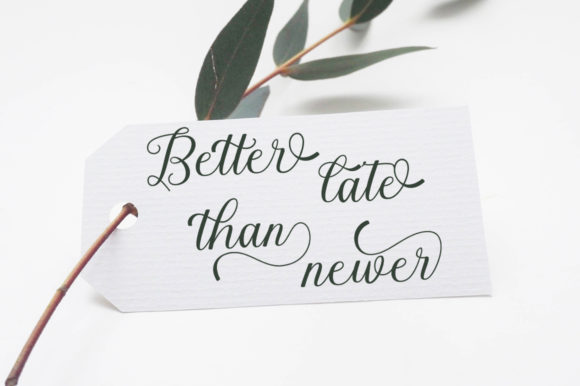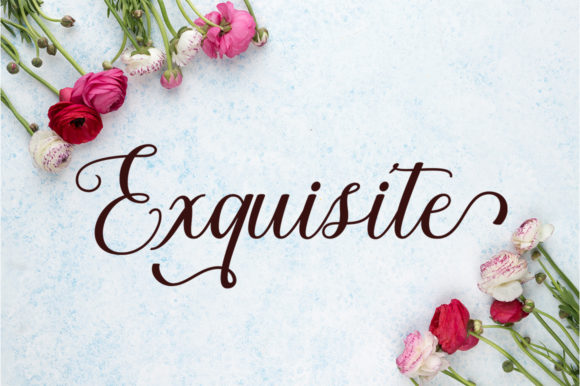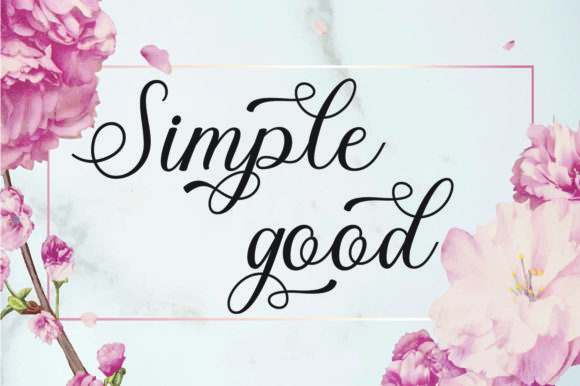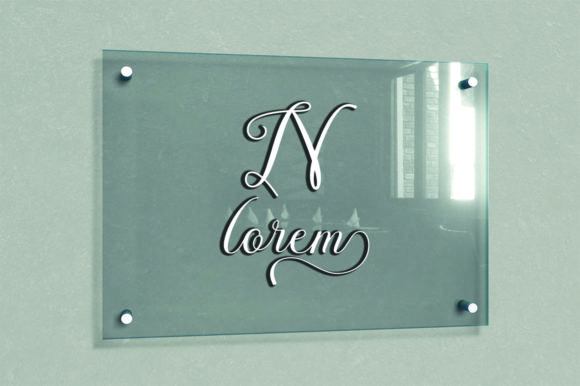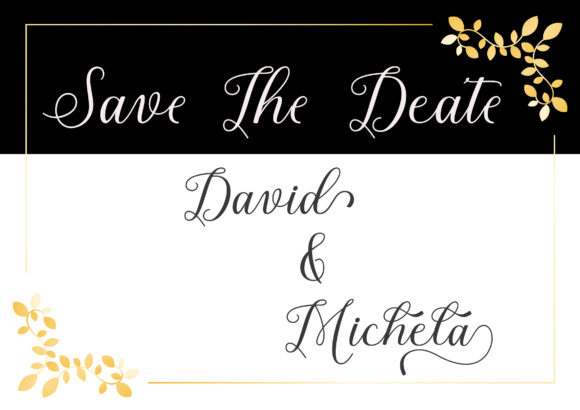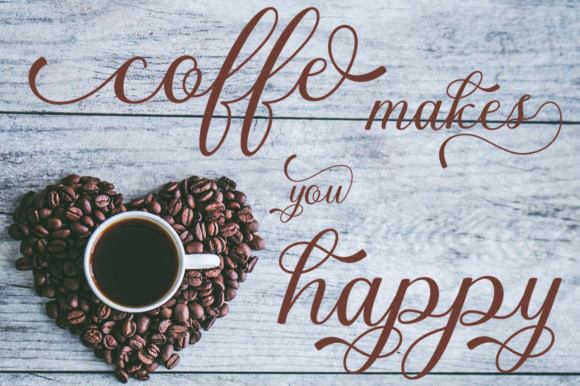
Familiar Font: Elevate Your Designs with Elegance and Sophistication
In the world of typography, a well-crafted font can make all the difference in elevating your designs to new heights. For designers and crafters seeking to add a touch of elegance and sophistication to their projects, Familiar Font is an exceptional choice. This beautiful, handwritten font is designed to bring a sense of refinement and luxury to any design, making it perfect for a wide range of applications.
What Makes Familiar Font Stand Out?
Familiar Font is an elegant and flowing handwritten font that boasts a range of features that set it apart from other fonts. Here are just a few reasons why designers and crafters are falling in love with this stunning font:
- Varying Baseline: The font features a varying baseline, which gives it a sense of movement and fluidity. This helps to create a natural, organic feel that is perfect for designs that require a touch of elegance.
- Smooth Lines and Gorgeous Glyphs: Familiar Font boasts smooth lines and gorgeous glyphs, which work together to create a truly stunning visual effect. The font’s lines are carefully crafted to be smooth and flowing, while the glyphs add an extra layer of depth and interest.
- Stunning Alternates: One of the standout features of Familiar Font is its stunning alternates. These provide you with a range of options for customizing your design, allowing you to create a truly unique look that reflects your brand or style.
A Perfect Blend of Classic and Contemporary
Familiar Font is a beautiful blend of classic calligraphic influences and contemporary design. The font’s elegant lines and flowing curves evoke the sense of traditional calligraphy, while its modern sensibilities make it feel fresh and current. This makes it perfect for designers and crafters who want to create designs that are both timeless and on-trend.
Whether you’re working on a wedding invitation, a branding project, or a digital design, Familiar Font is the perfect choice. Its versatility and elegance make it suitable for a wide range of applications, from formal events to everyday designs.
Bring Your Projects to the Highest Levels
If you’re looking for a font that will help you take your designs to the next level, look no further than Familiar Font. This stunning font is designed to help you create beautiful, professional-looking designs that will leave a lasting impression.
With Familiar Font, you can:
- Create stunning wedding invitations, save-the-dates, and other event designs
- Elevate your branding and packaging designs with a touch of elegance
- Add a touch of sophistication to your digital designs, including social media graphics and website headers
- Use the font to create beautiful quotes, posters, and other inspirational designs
In conclusion, Familiar Font is an exceptional choice for designers and crafters seeking to add a touch of elegance and sophistication to their projects. With its PUA encoding, varying baseline, smooth lines, gorgeous glyphs, and stunning alternates, this font is sure to impress. Its perfect blend of classic and contemporary design makes it versatile and suitable for a wide range of applications. So why wait? Fall in love with Familiar Font and bring your projects to the highest levels!